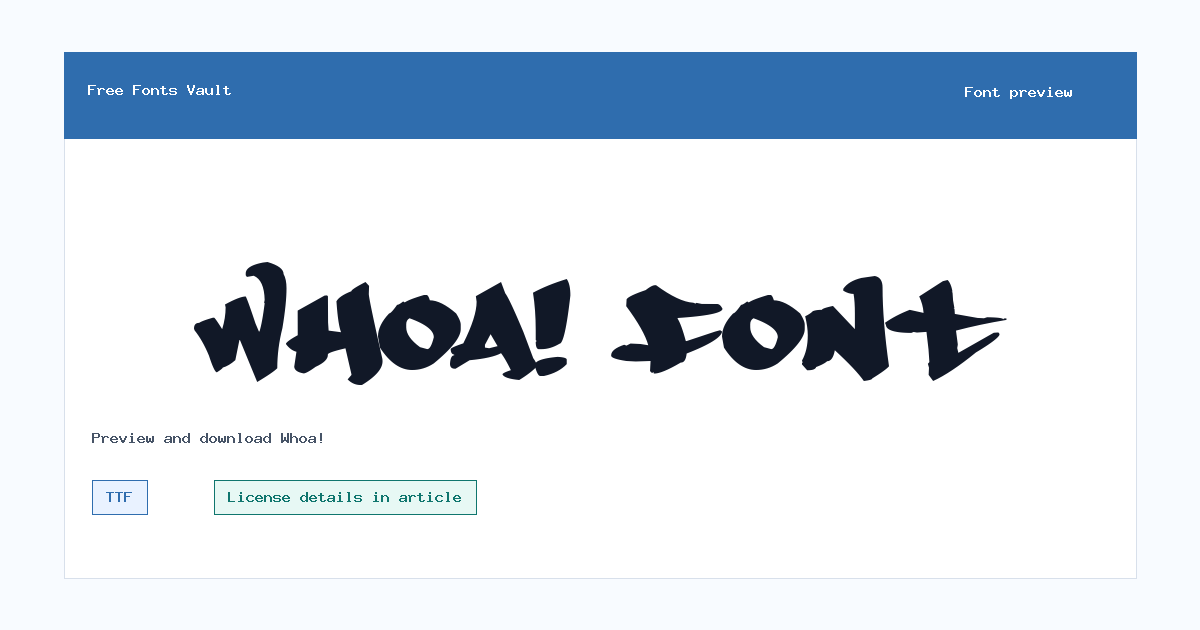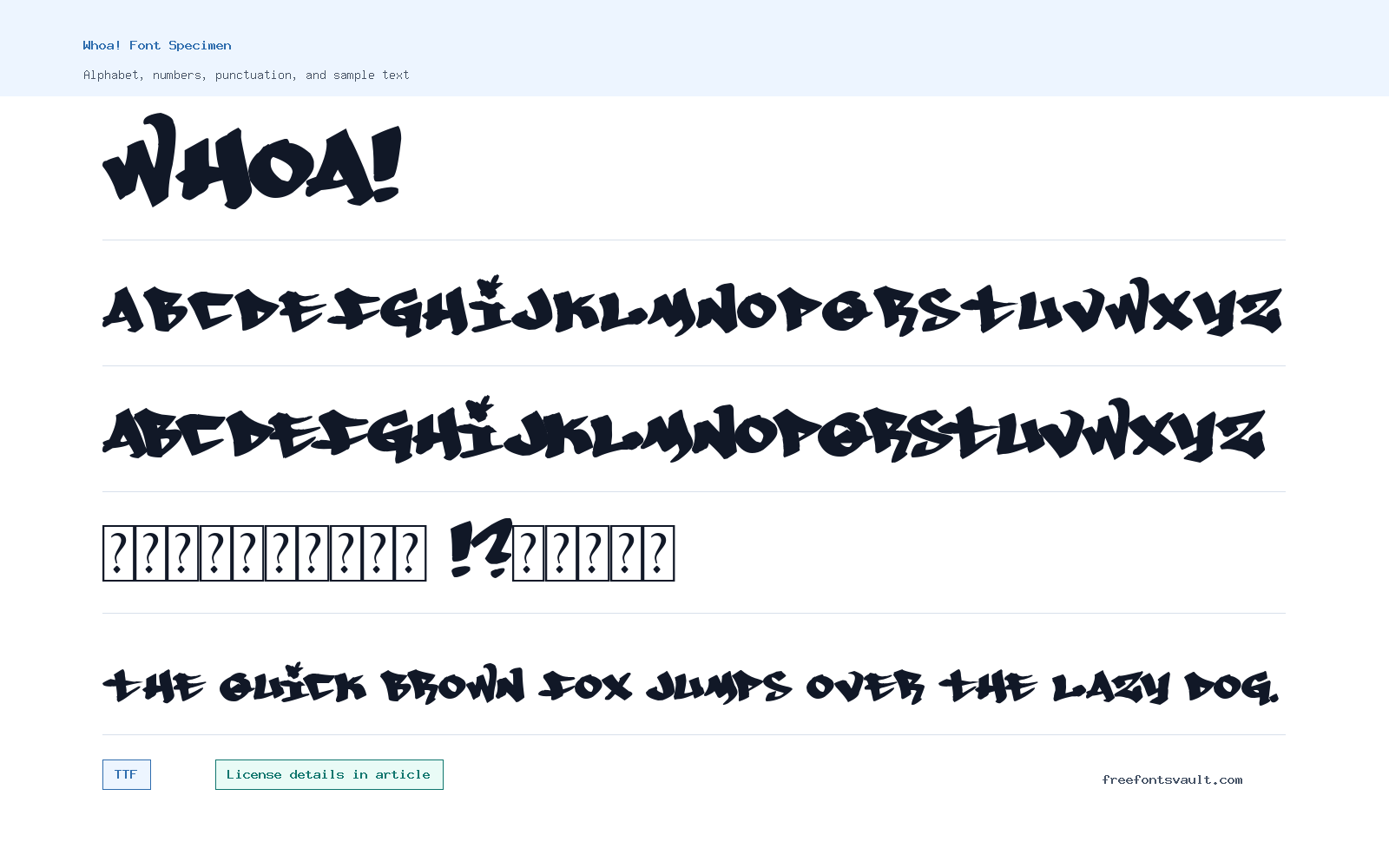
Whoa!
Whoa! Font
Whoa! is a bold graffiti-style display font with chunky, tag-inspired letterforms made for short words, loud titles, and urban-themed graphics.
About Whoa! Font
Whoa! was designed by Johan Waldenström. DaFont identifies it as a graffiti font and notes that the name comes from the Swedish hip-hop community Whoa. Its look is heavy and compact, with rounded, filled-in strokes that give words a strong street-lettering feel without becoming hard to read at large sizes.
Use Whoa! when you need a title that feels like a tag, sticker, mixtape cover, poster headline, thumbnail, or streetwear mockup. It works best in big sizes, where the thick shapes have room to breathe. It is not a good choice for body text, formal layouts, long paragraphs, or small UI labels, because the dense graffiti style can become tiring when repeated.
For a stronger result, set Whoa! in one or two words and build the design around it: a sticker label, a stage-name lockup, a poster shout, or a product mockup headline. It benefits from bold color, outline effects, and plenty of empty space around the letters.
• Chunky graffiti/tagging-style letterforms with a bold, compact look
• Strong display presence for short words, logos, posters, stickers, thumbnails, and music graphics
• Best used at large sizes, especially for energetic titles and decorative text
• Hip-hop posters and music graphics
• Streetwear mockups and sticker designs
• YouTube thumbnails and social media title art
• Graffiti-inspired headings, tags, and short display words
• Event flyers, cover art, and bold decorative layouts
What kind of font is Whoa!?
Whoa! is a graffiti-style display font with thick, tagging-inspired letters. It is meant for bold headings and decorative text, not long reading.
What is Whoa! best used for?
It works best for short, high-impact text such as posters, stickers, thumbnails, hip-hop graphics, streetwear mockups, and graffiti-inspired titles.
Is Whoa! good for body text?
No. The thick graffiti shapes are better for large display use. Choose a simpler font for paragraphs, menus, captions, or formal documents.